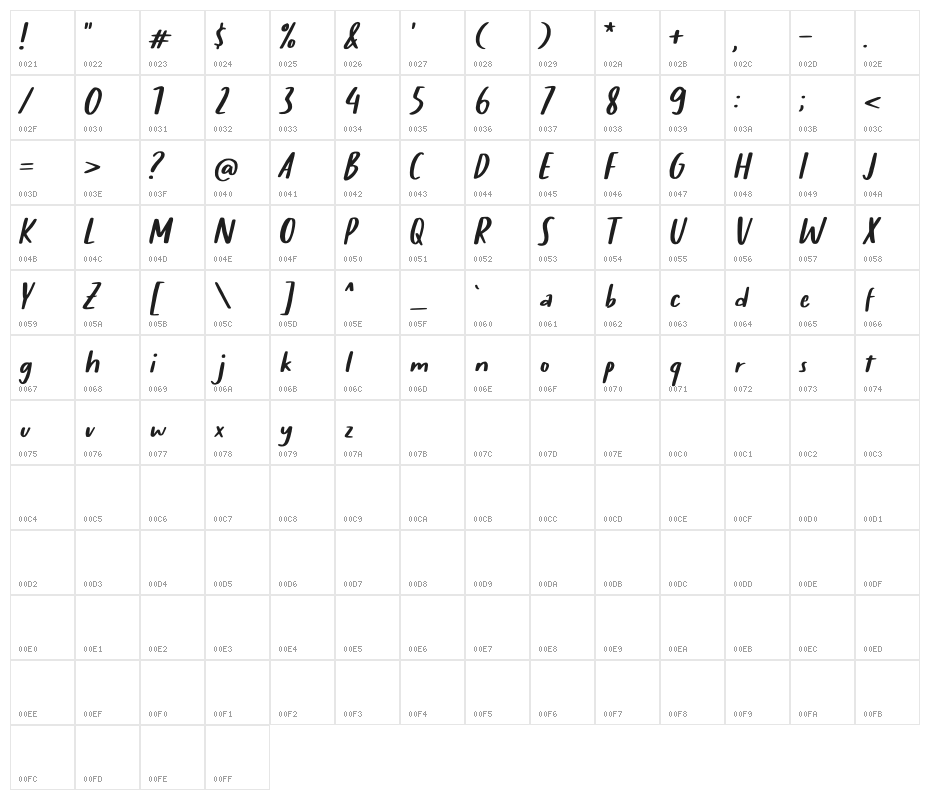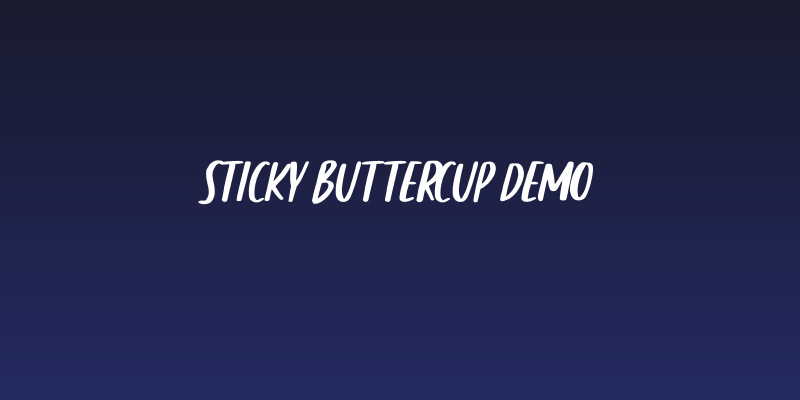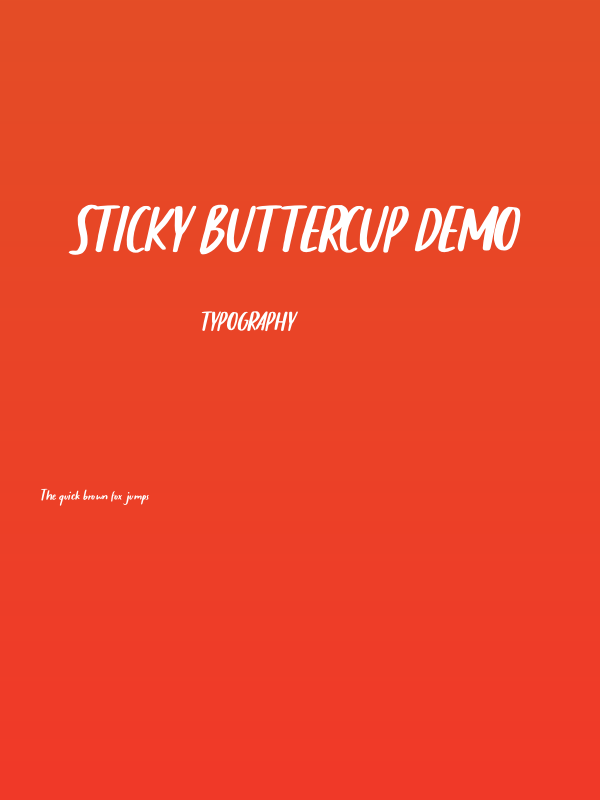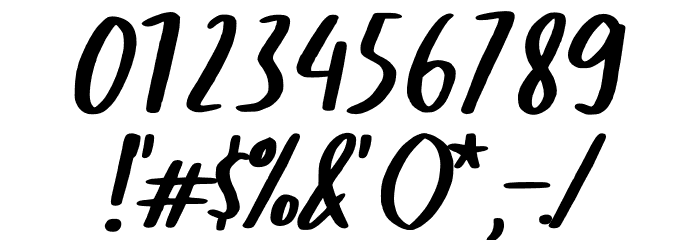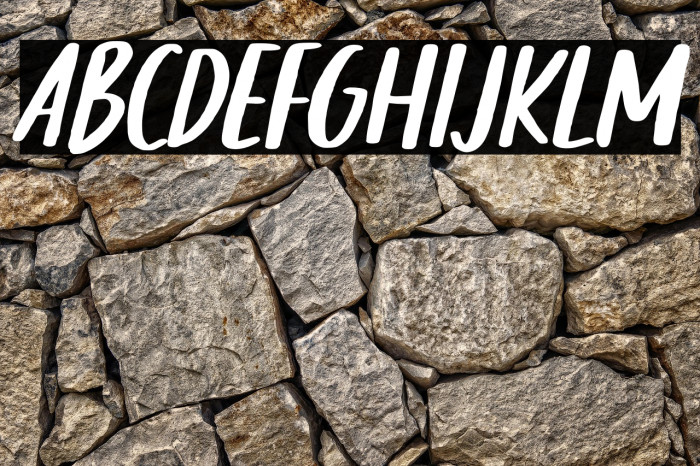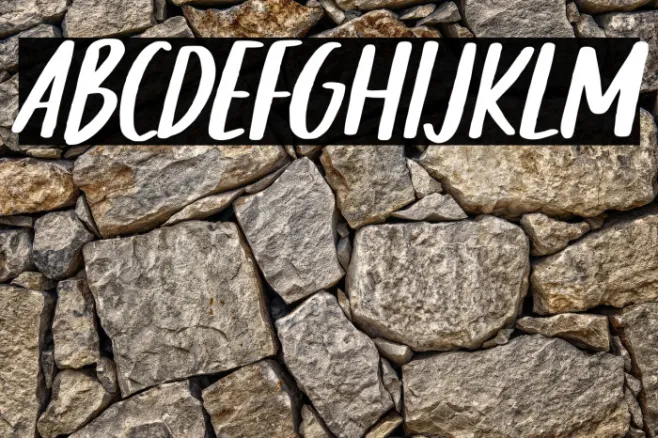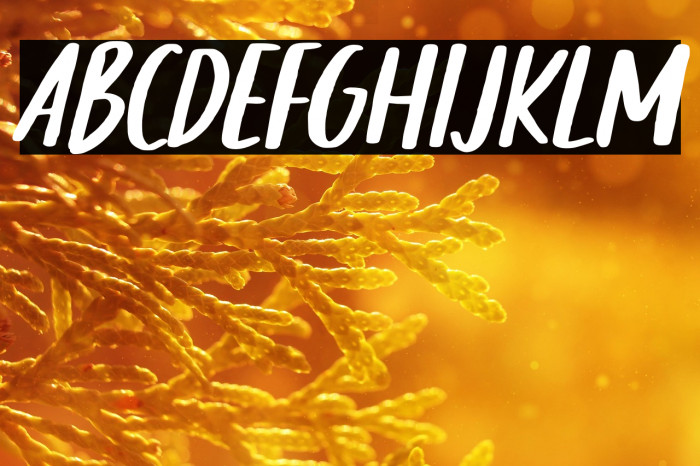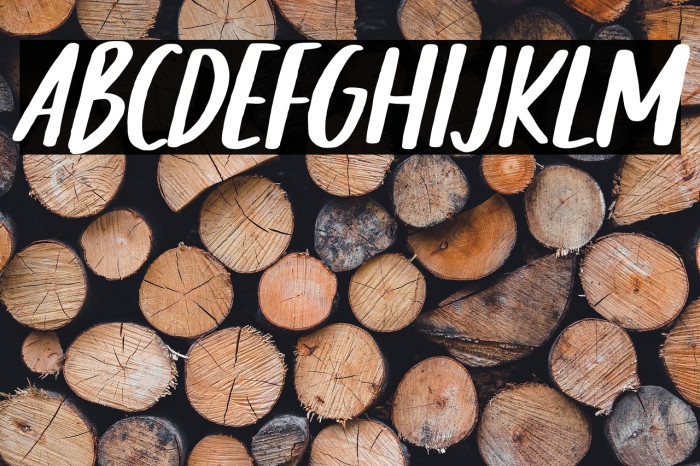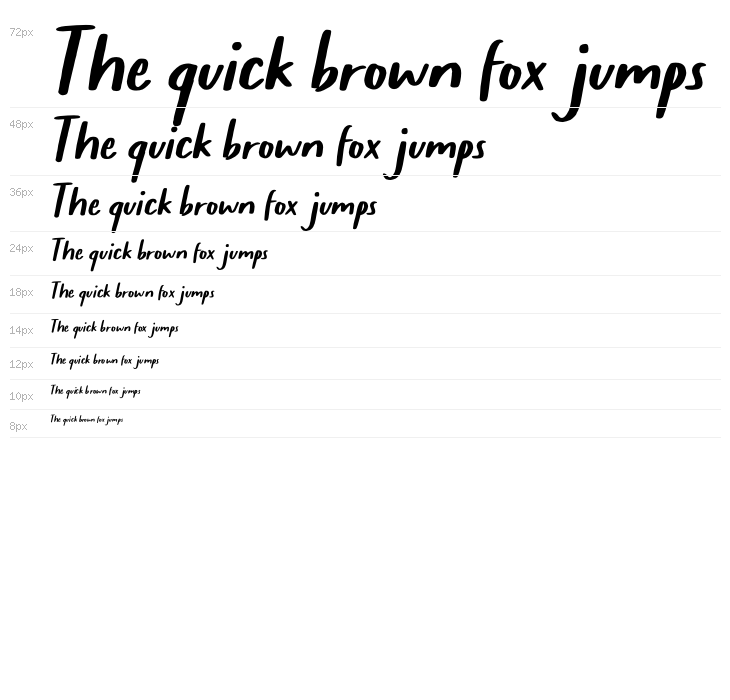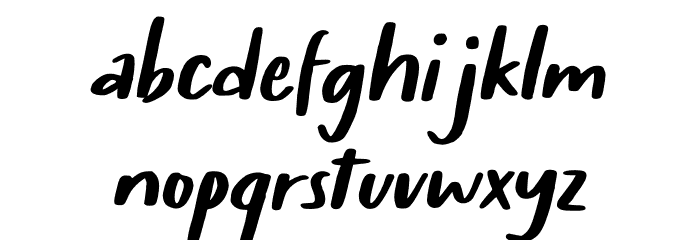
Sticky Buttercup Demo Font
Sticky Buttercup Demo Description
This font features a playful and energetic handwritten style, characterized by its bold and slightly slanted letterforms. The strokes are smooth and fluid, giving it a casual and friendly appearance. The uppercase and lowercase letters maintain a consistent style, with a slight variation in size and shape that adds to its charm. The numbers and special characters are designed to match the overall aesthetic, ensuring a cohesive look across all text. This font's unique personality makes it stand out, making it ideal for creative projects that require a touch of whimsy.